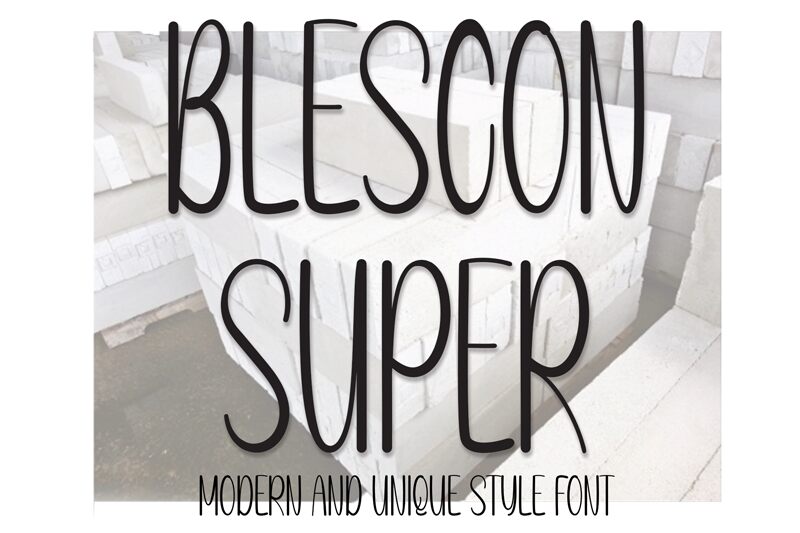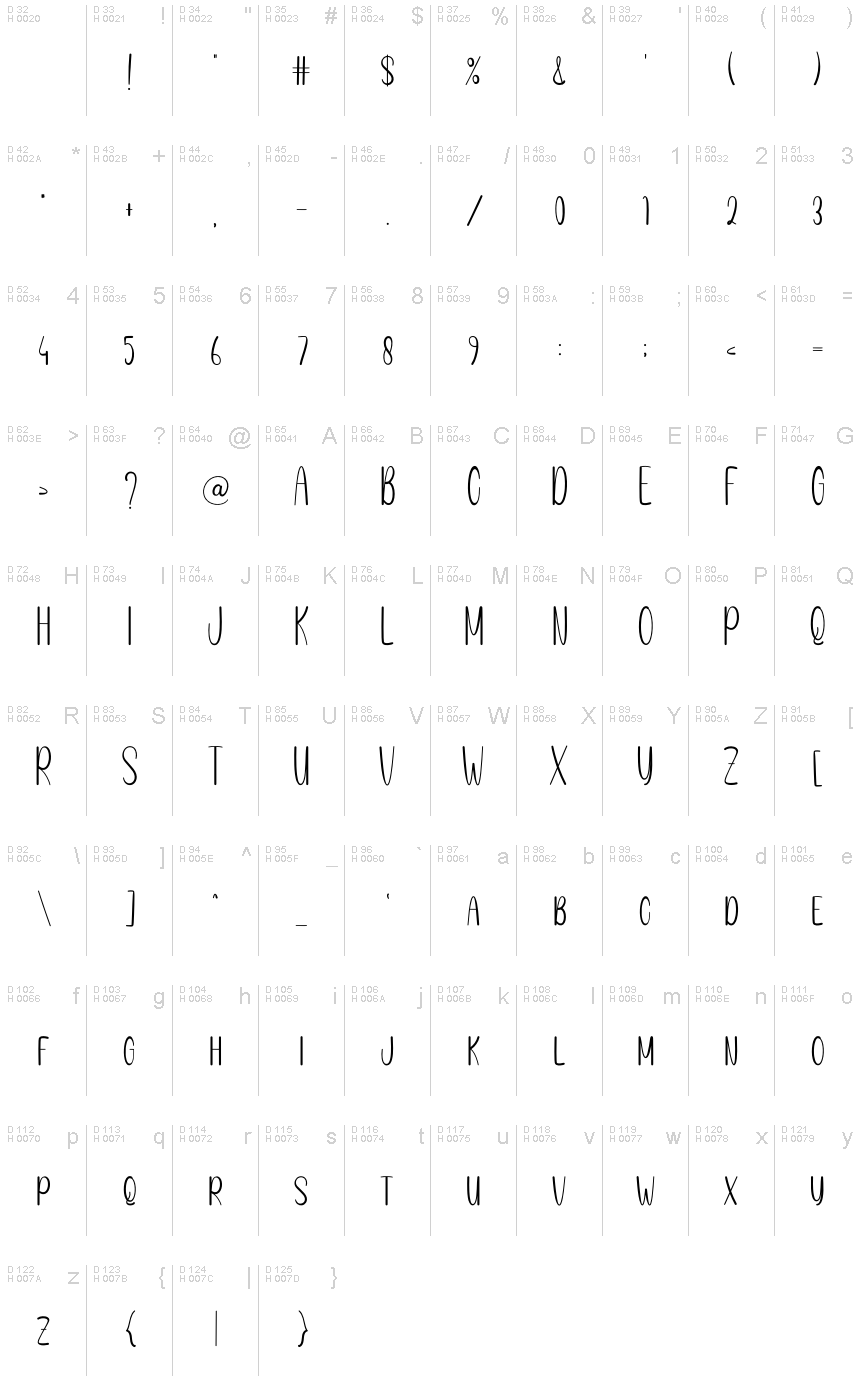
BLESCON SUPER
Blescon Super font is a sweet and friendly handwritten display with condensed letters exhibiting elongated casual shapes. The font's light structure feels playful, fun, and informal making it ideal for cards, invitations, and projects that require a little playful touch.
Blescon Super by Andi Moz can be used in designing invitations for birthdays or weddings; even anniversaries with a whimsical twist. Write lovable greeting cards with interesting envelopes—the font is applicable for branding products made of paper similar to books or magazines; posters and banners!